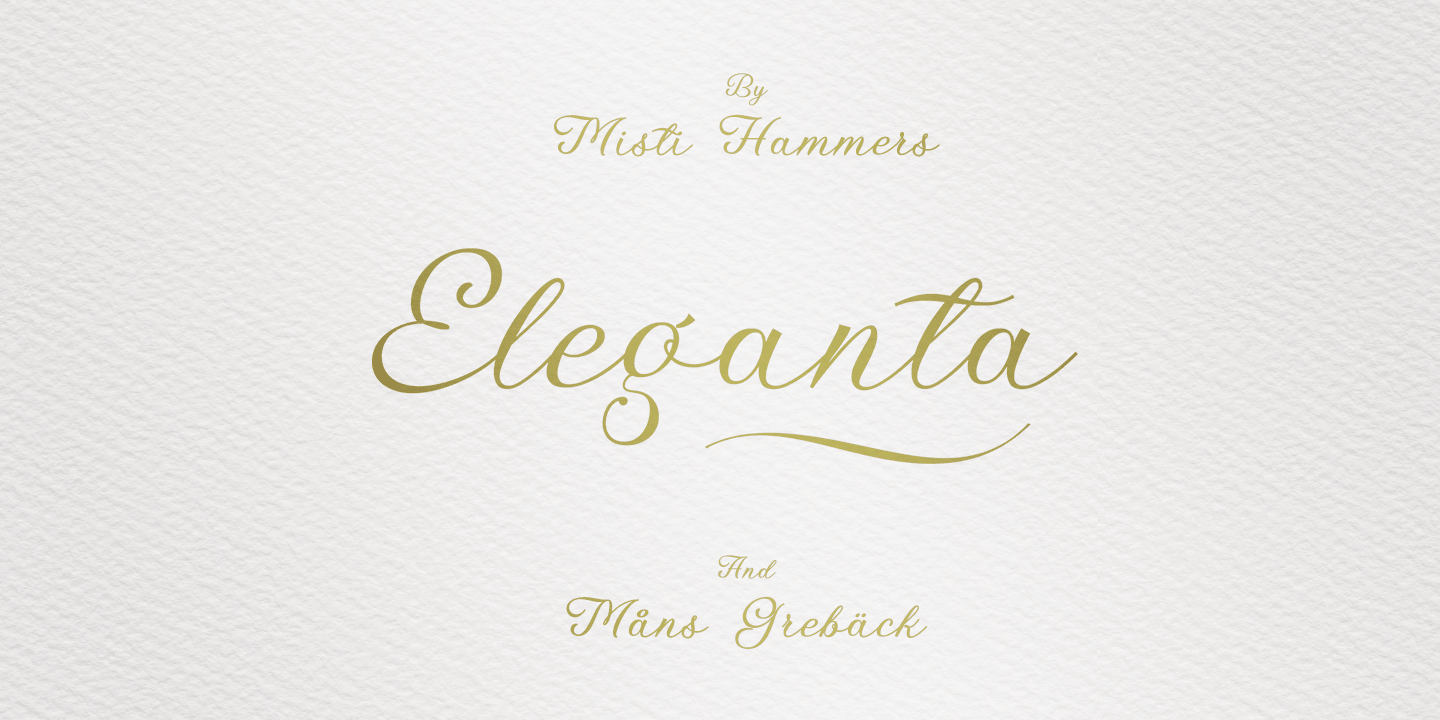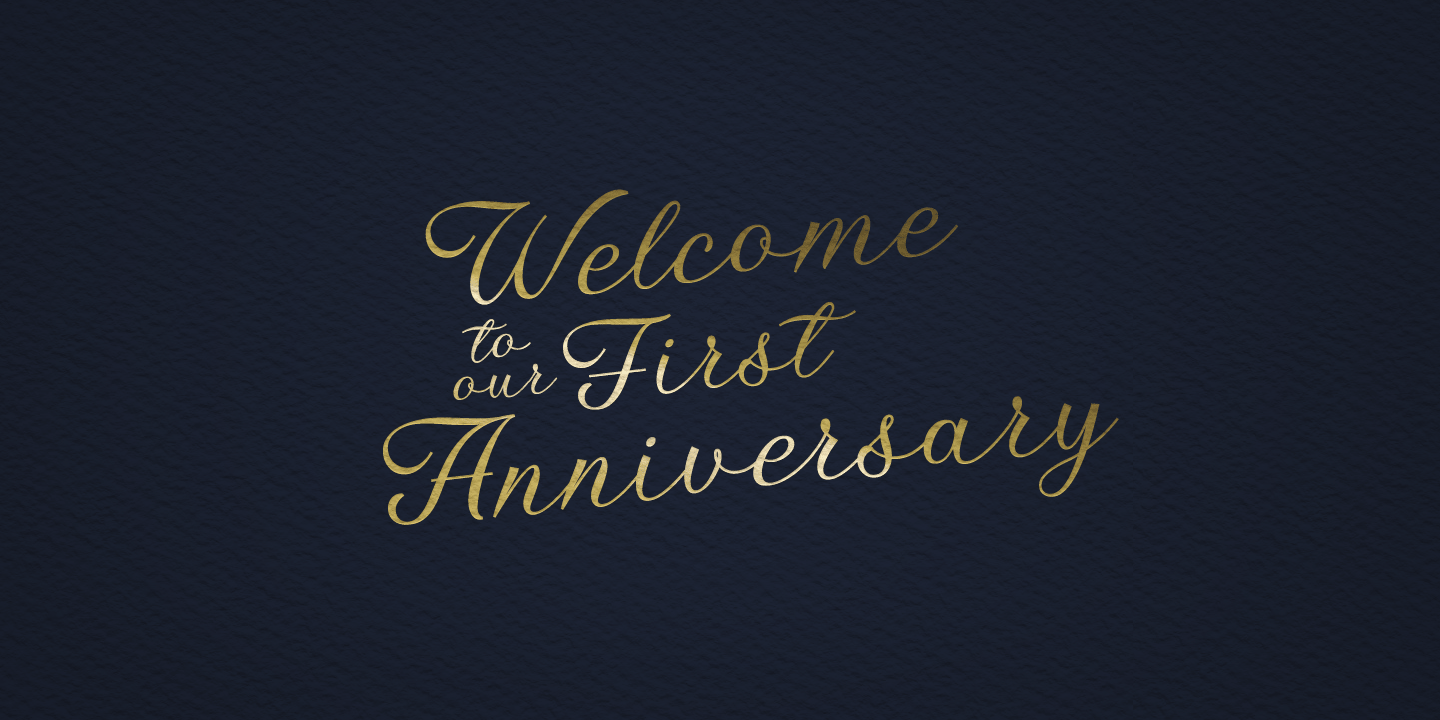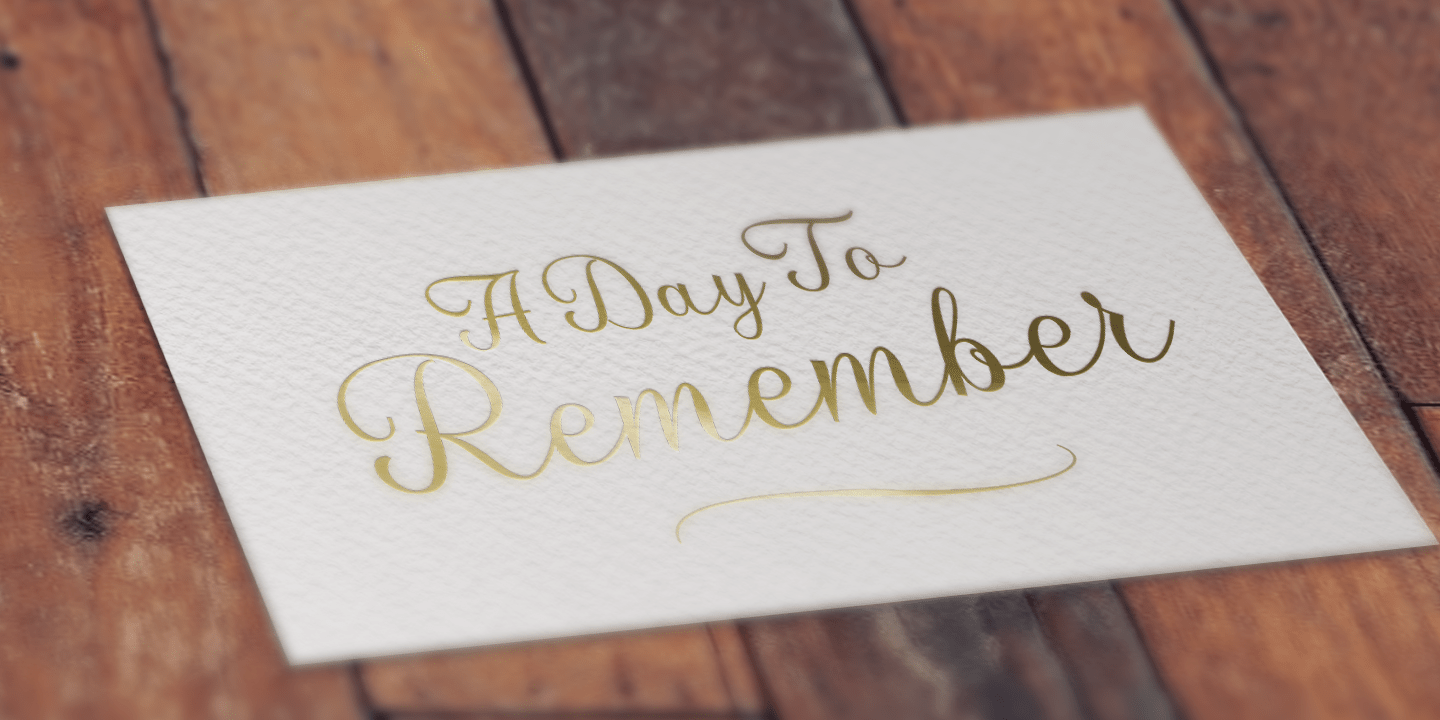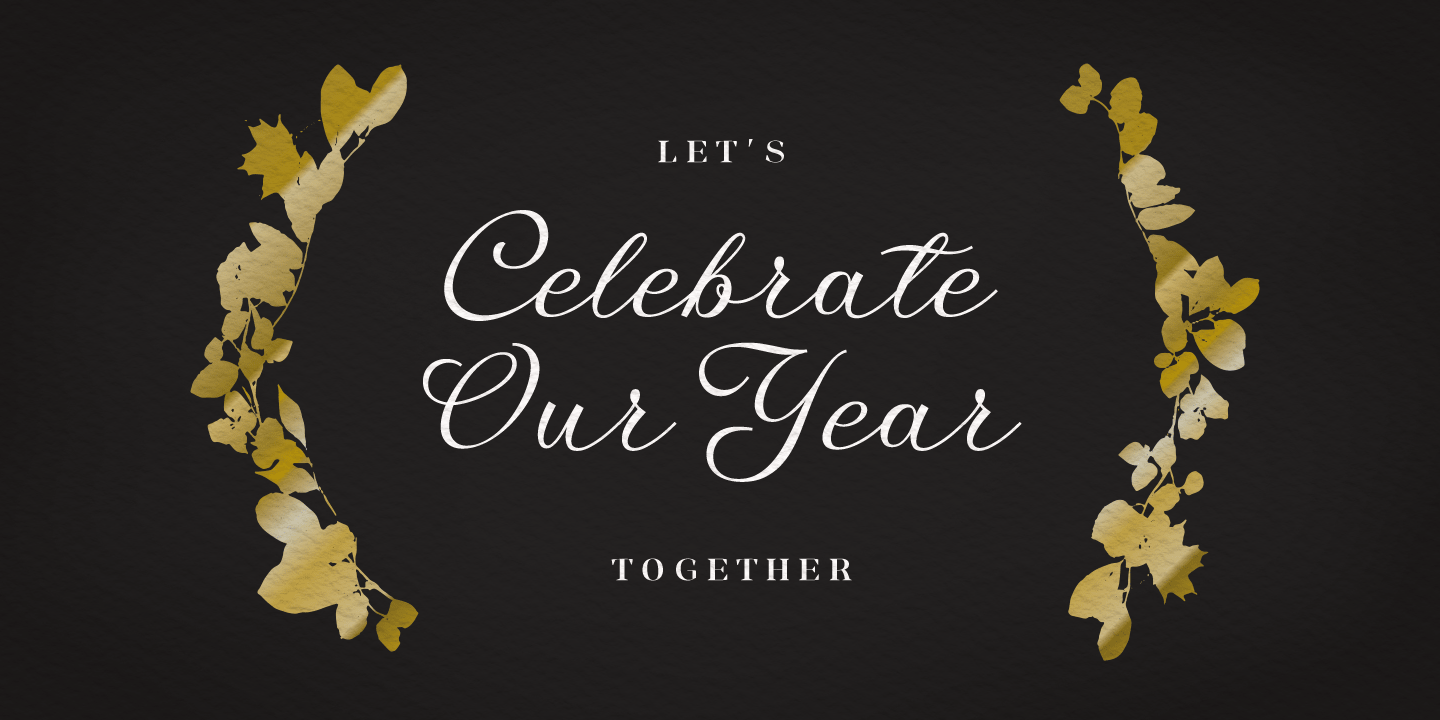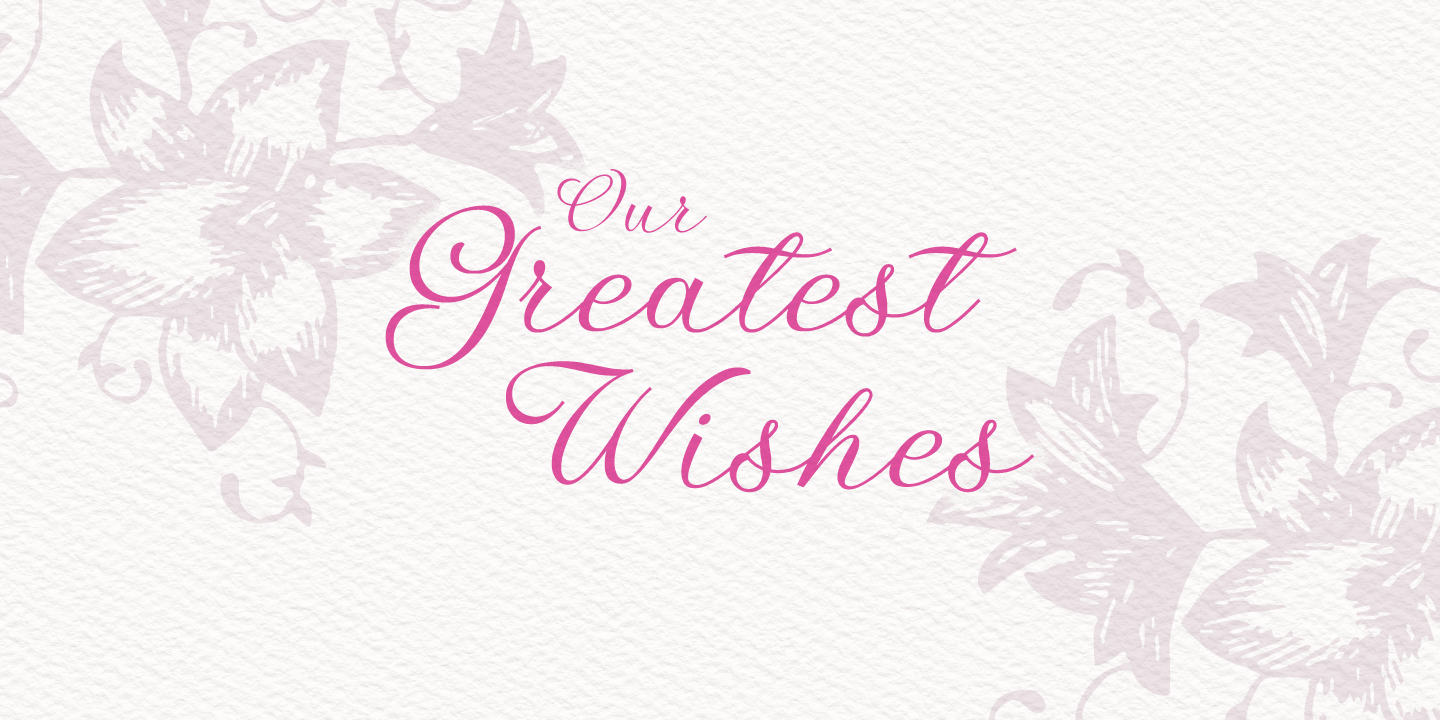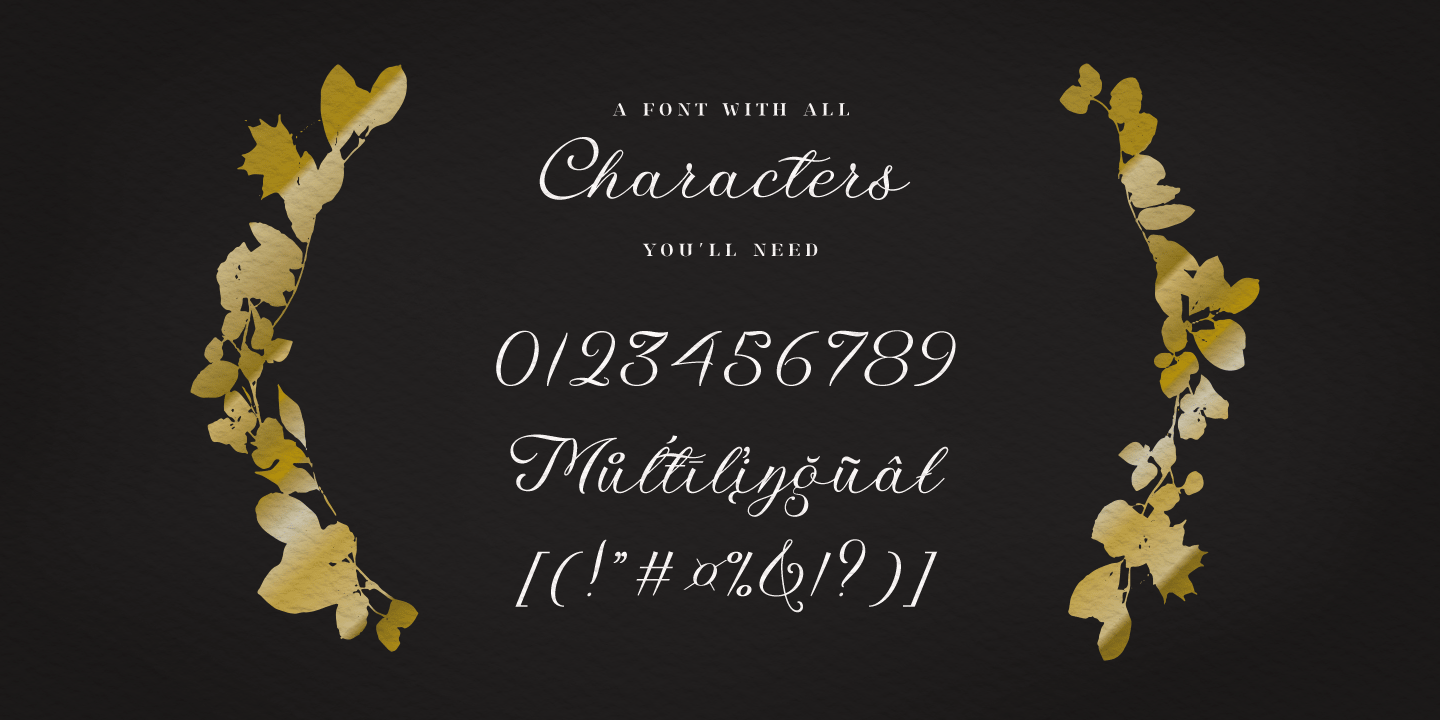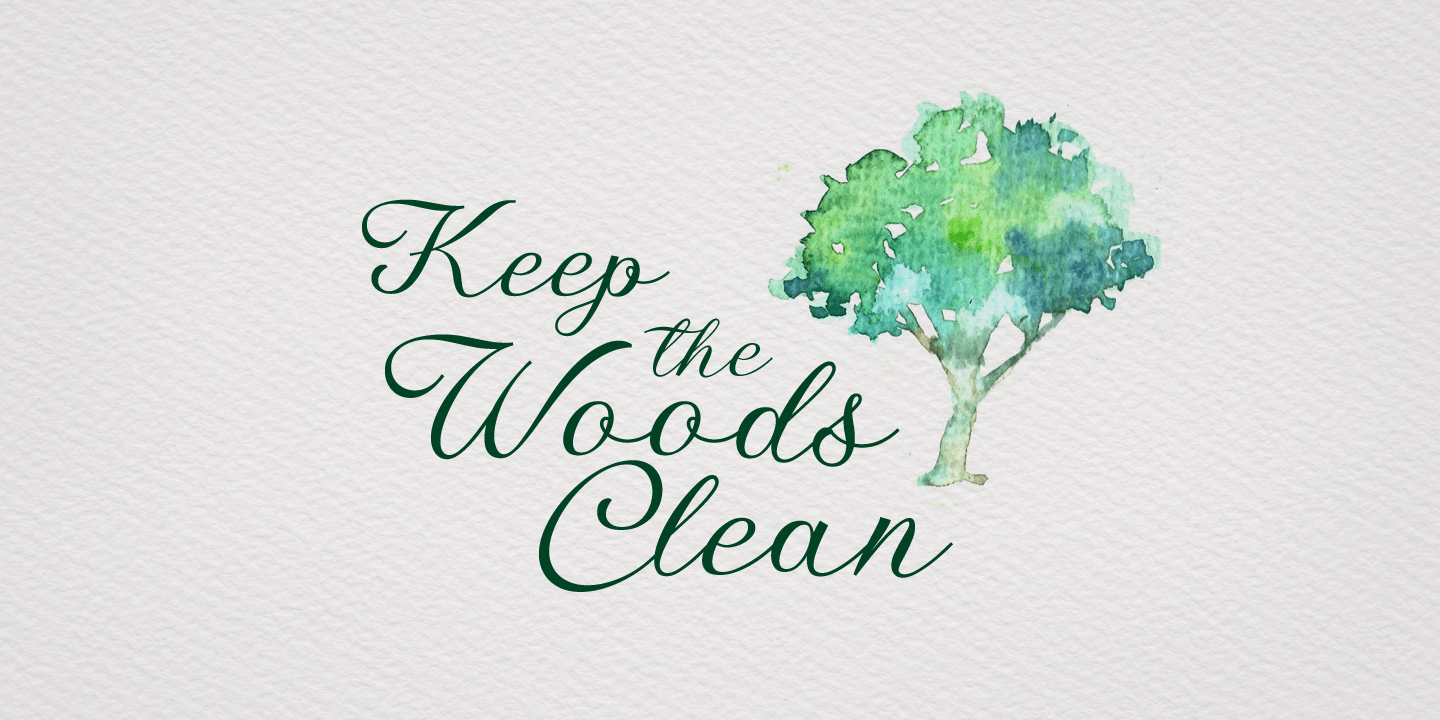
Eleganta
About the Eleganta Font
Eleganta is a beautiful calligraphic script typeface. It was drawn and created by Misti Hammers and Måns Grebäck in 2019.
As the name implies, it is first and foremost an elegant letter style, but with its handcrafted shapes preserved, it is still down-to-earth and affectionate. Use it in romantic or celebratory contexts, for an invitation or anywhere you want to transmit a personal message.
The font supports all Latin-based European languages, contains numbers and all symbols you’ll ever need.